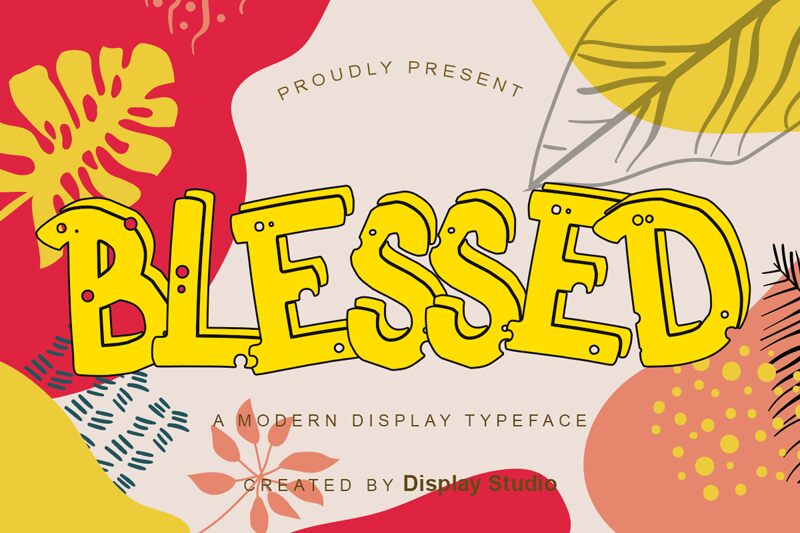
Blessed is a playful display font designed by Display Studio. Its unique cartoon style is perfect for a variety of projects, from children's books to quirky branding campaigns. The bold and semi-bold font weights allow for versatility in design, while the Blessed's wide width creates a fun and playful atmosphere. Inspired by the delicious Emmental cheese, Blessed is sure to add a touch of whimsy to any project. Use it for anything from packaging design to social media graphics - let your creativity run wild with this fun and versatile font!
Blessed